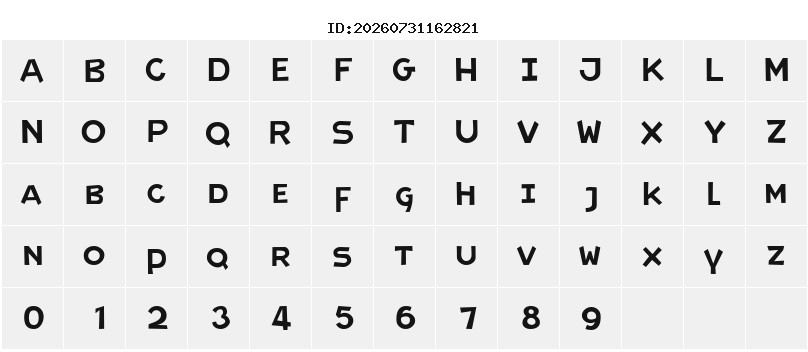
Letrinth Preview
• Font Name: Letrinth
About Letrinth.ttf
Letrinth.ttf is a modern, elegant sans-serif font designed for ultimate readability and visual harmony. Perfect for branding, headlines, web design, and print materials.